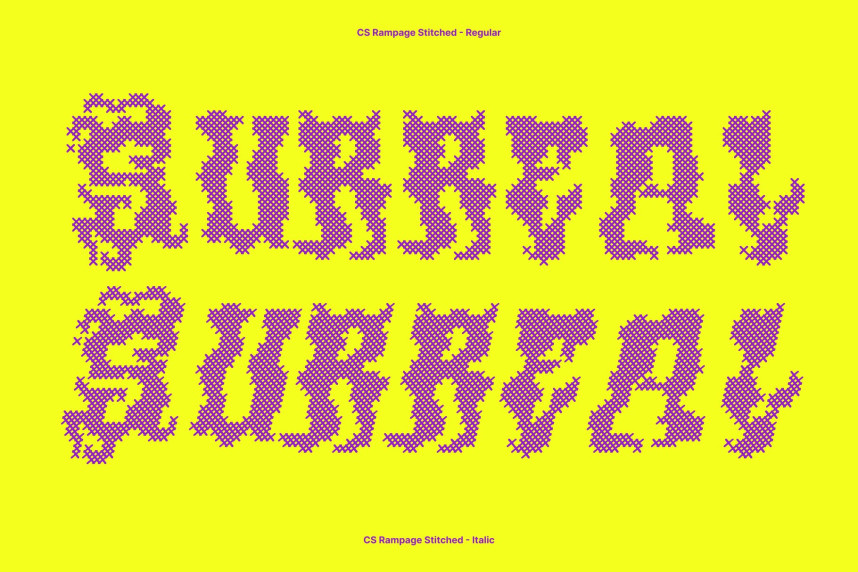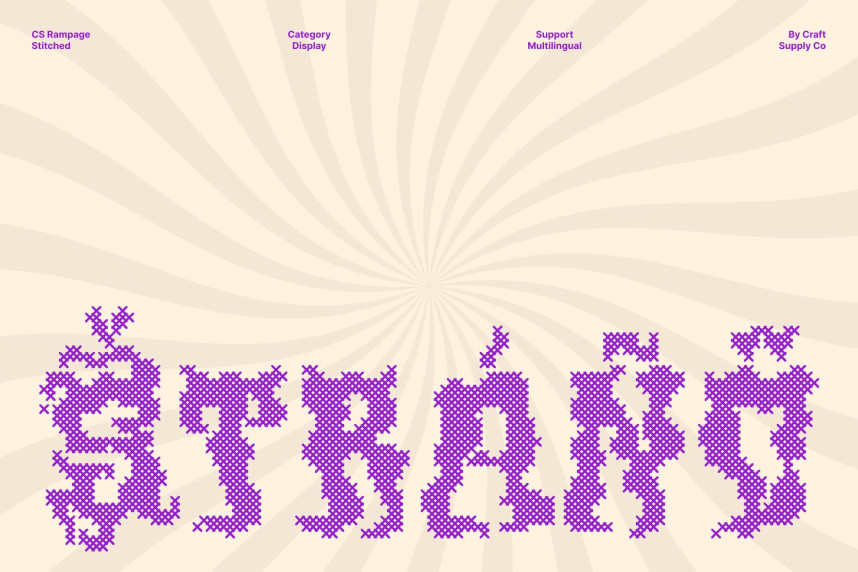
CS Rampage Stitched Font
CS Rampage Stitched Font – Psychedelic Font of Unfiltered Expression
Psychedelic Display Font with Funky Energy
This is a modern psychedelic display font filled with unconventional curves, twisted shapes, and dynamic movement. The stitched texture adds a handcrafted character that enhances its expressive and rebellious personality, creating typography that feels alive, energetic, and visually rhythmic.